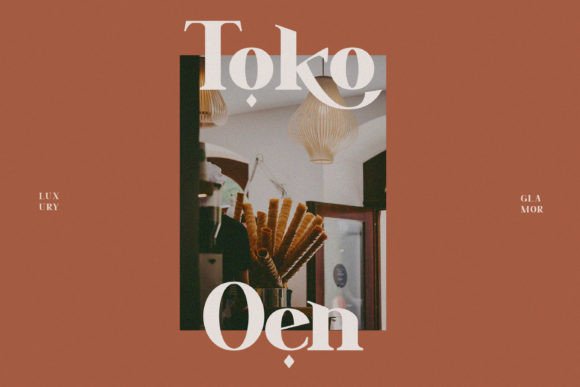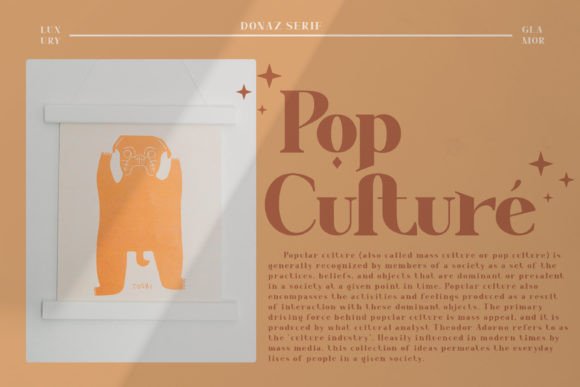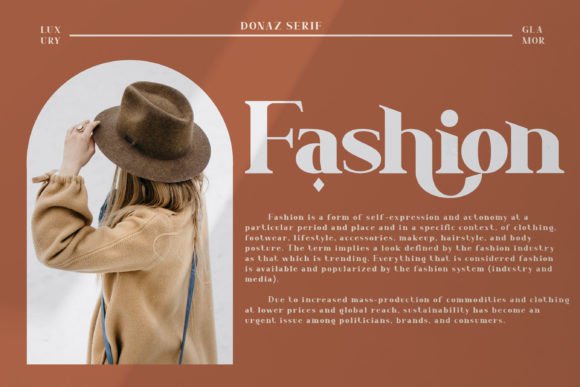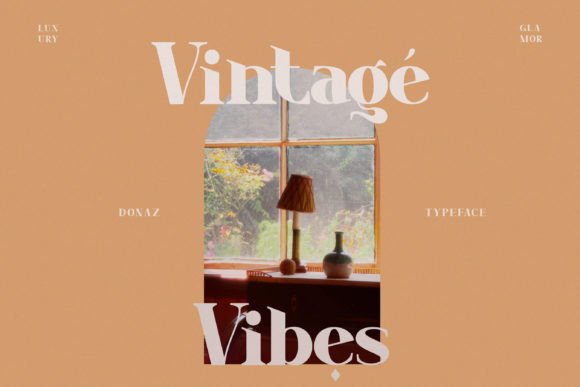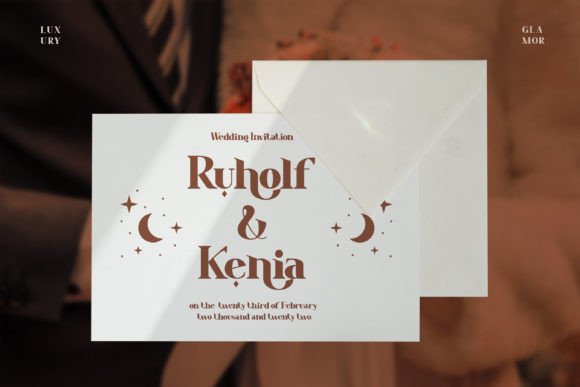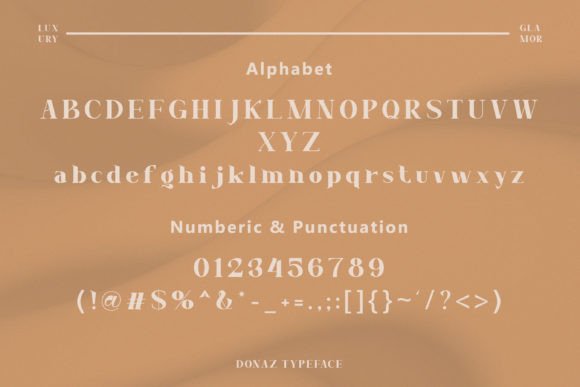
Discover the Charm of Donaz Font: A Playful Nostalgic Serif Font for Your Design Needs
Are you looking for a font that can add a touch of vintage charm to your design projects? Look no further than the Donaz Font. This beautifully crafted serif font is designed to evoke a sense of nostalgia and playfulness, making it perfect for designers and crafters who want to add a retro twist to their work.
The Unique Characteristics of Donaz Font
Donaz Font is a unique and eye-catching serif font that boasts a distinctive vintage aesthetic. Its carefully crafted letterforms are designed to transport you back in time, evoking memories of classic typography from a bygone era. With its playful and nostalgic feel, Donaz Font is sure to add a special touch to any design project.
One of the standout features of Donaz Font is its elegant serifs, which add a level of sophistication and refinement to any text. The font’s letterforms are carefully proportioned to create a sense of balance and harmony, making it perfect for use in a wide range of design applications, from logos and branding to packaging and advertising.
Why Choose Donaz Font for Your Design Projects?
So why choose Donaz Font for your design projects? Here are just a few reasons why this amazing font is a must-have for designers and crafters:
- Unique Vintage Aesthetic: Donaz Font boasts a unique and eye-catching vintage aesthetic that is sure to set your designs apart from the crowd.
- Playful and Nostalgic: This font’s playful and nostalgic feel makes it perfect for designers who want to add a touch of retro charm to their work.
- Elegant Serifs: The elegant serifs of Donaz Font add a level of sophistication and refinement to any text, making it perfect for use in high-end design applications.
- Versatile: Donaz Font is a versatile font that can be used in a wide range of design applications, from logos and branding to packaging and advertising.
How to Use Donaz Font in Your Design Projects
Using Donaz Font in your design projects is easy. Here are a few tips to get you started:
- Pair it with Modern Fonts: Pair Donaz Font with modern fonts to create a striking contrast that adds visual interest to your designs.
- Use it for Headings: Use Donaz Font for headings and titles to add a touch of vintage charm to your designs.
- Experiment with Colors: Experiment with different colors to find the perfect combination that complements the vintage aesthetic of Donaz Font.
In conclusion, Donaz Font is a beautifully crafted serif font that is sure to add a touch of vintage charm to any design project. Its unique and eye-catching aesthetic, combined with its playful and nostalgic feel, make it a must-have for designers and crafters who want to create stunning designs that stand out from the crowd.
Whether you’re looking to create a retro-style logo, add a touch of vintage charm to your packaging, or simply want to experiment with a new font, Donaz Font is the perfect choice. So why wait? Download Donaz Font today and start creating stunning designs that are sure to impress!